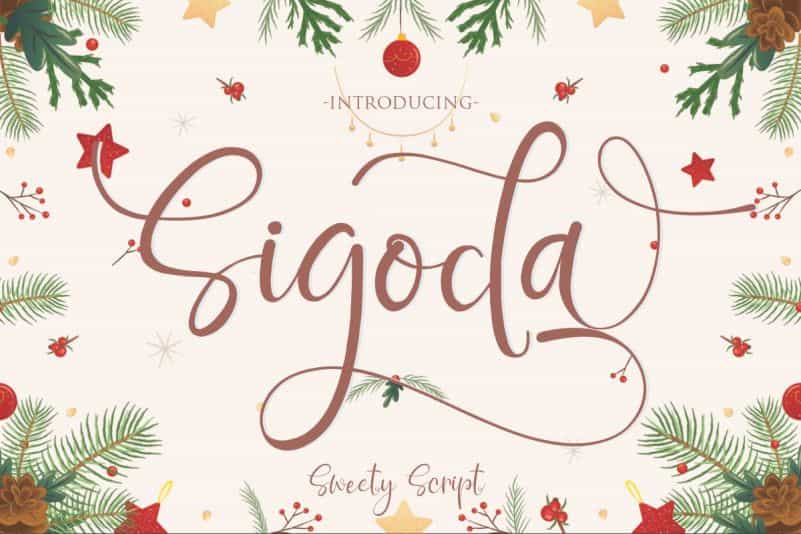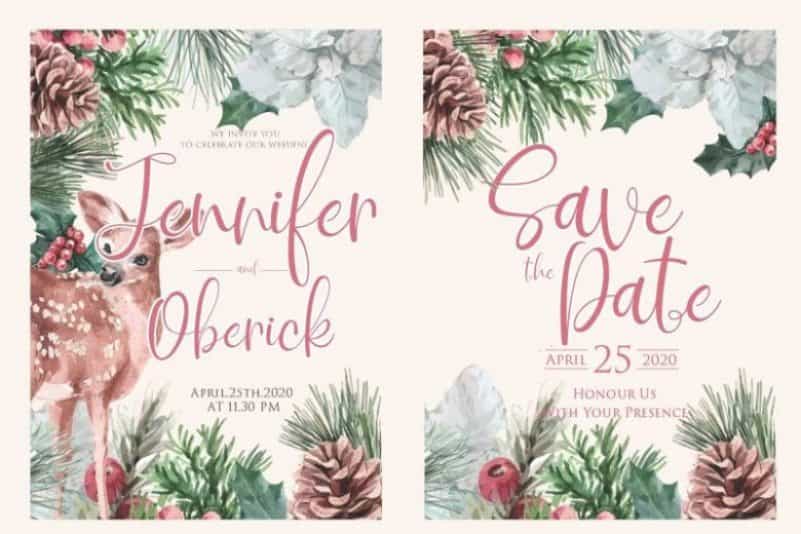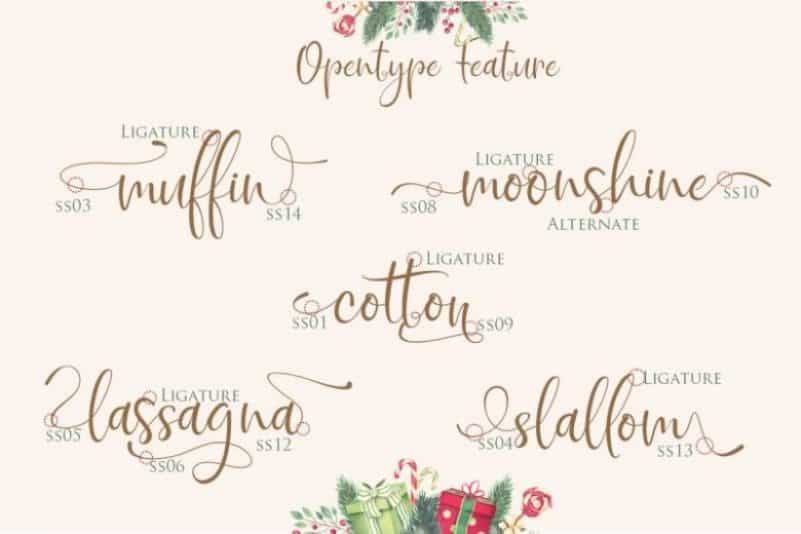
Discover Sigoda Font, part of the Calligraphy collection—a versatile and unique font perfect for adding a personal touch to your projects. Download it for free and enjoy crafting designs with style, from invitations to social media posts. This font is available exclusively for personal use, giving you the freedom to create without limits. Unlock your creativity with Sigoda Font today!
Sigoda is an elegant modern calligraphy font which is great for branding, wedding invites, cards, etc. Sigoda consisting of Basic Characters in both Upper and Lowercase, Numbers and Punctuation.